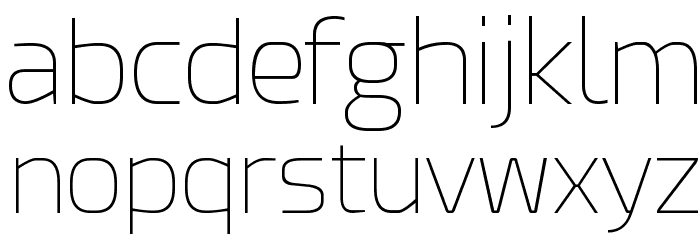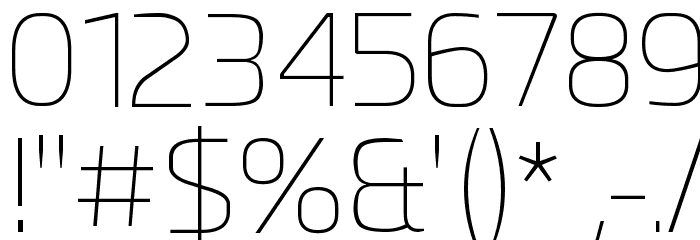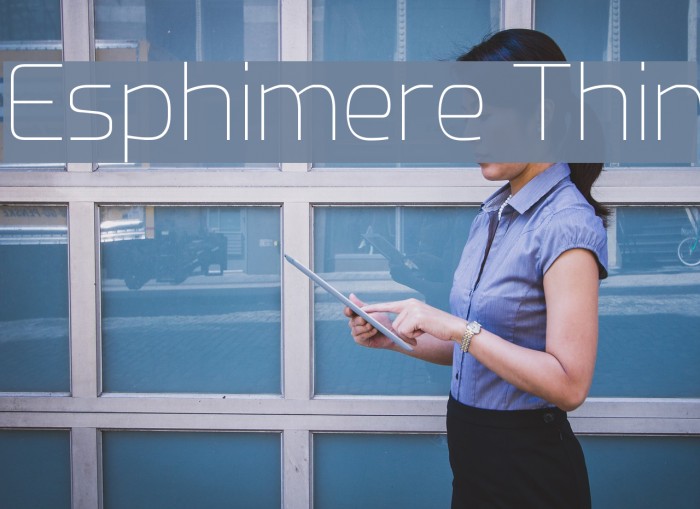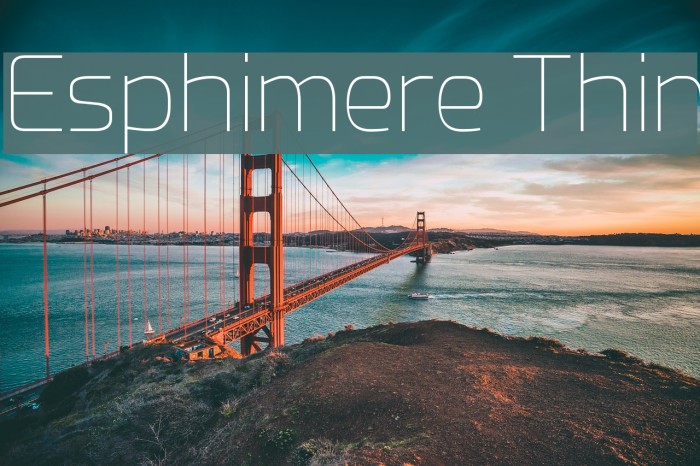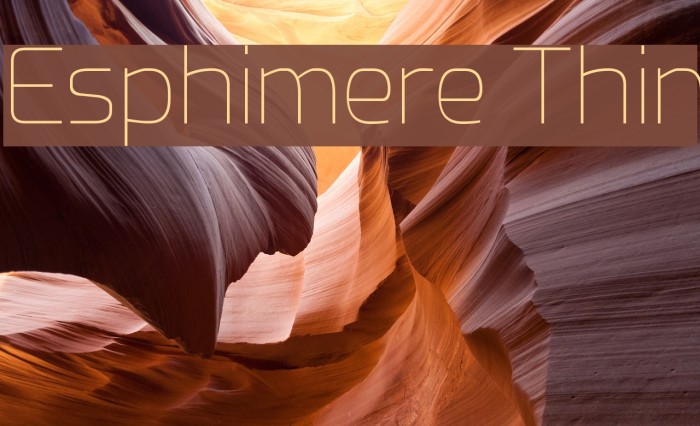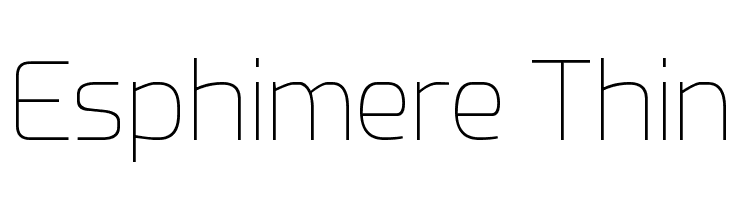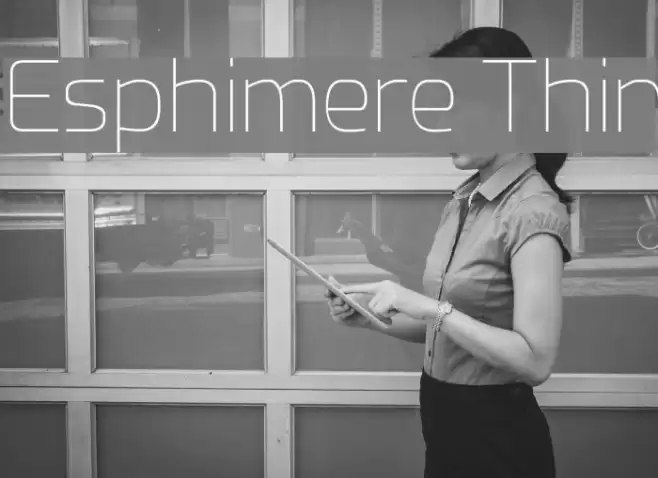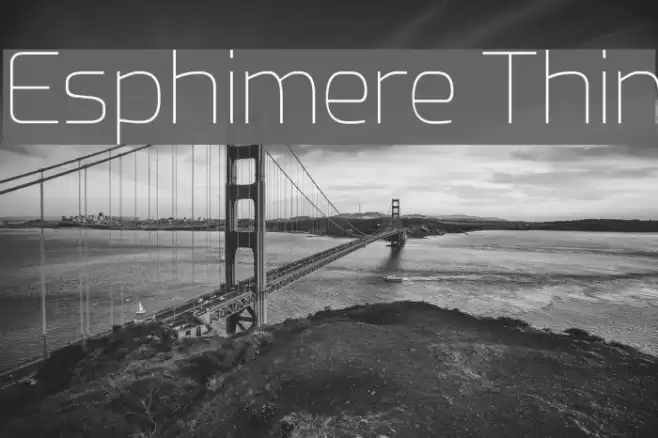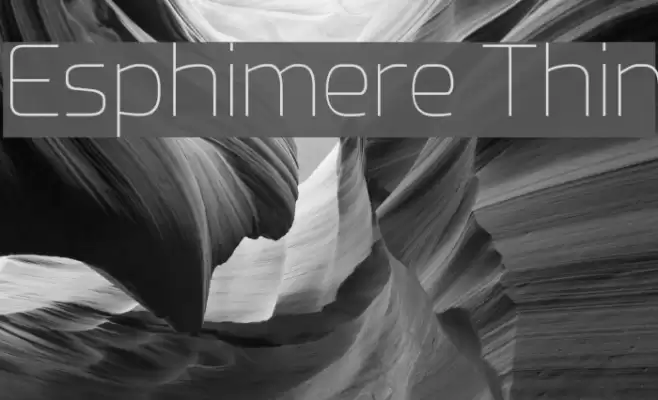
Esphimere Thin Font
This font features a sleek, modern design with thin, clean lines and a minimalist aesthetic. The characters are evenly spaced, providing a balanced and airy appearance. The uppercase letters are slightly taller than the lowercase, adding a subtle elegance to the overall look. The numerals and special characters maintain the same thin line weight, ensuring consistency throughout. This font's simplicity and clarity make it highly versatile for various design applications.
A modern, thin, and minimalist font with clean lines and balanced spacing.
- Proposed Projects: Ideal for modern branding, minimalist posters, sleek website headers, and contemporary product packaging.